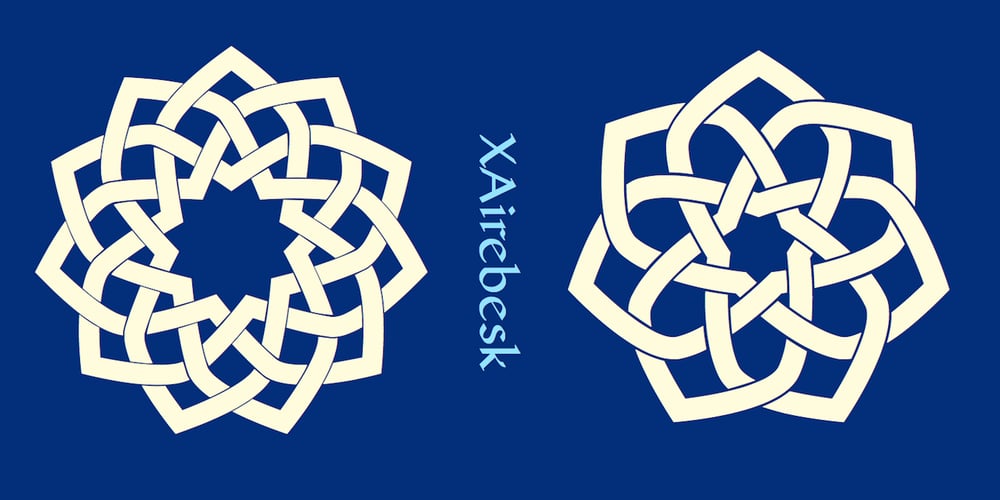
XAirebesk Font Family was designed by Robert Schenk and published by Ingrimayne Type. XAirebesk contains 2 styles and family package options. I am not sure exactly how to classify these geometrical ornaments. They resemble the arabesque ornamentation of medieval Islamic art, but also have similarities to Celtic knots and to some Chinese and Korean ornamentation. The bolder of the two only works well at very large point sizes, while the thinner is designed for use at smaller point sizes. There are usually similar ornaments on the same characters of the two, but not always.